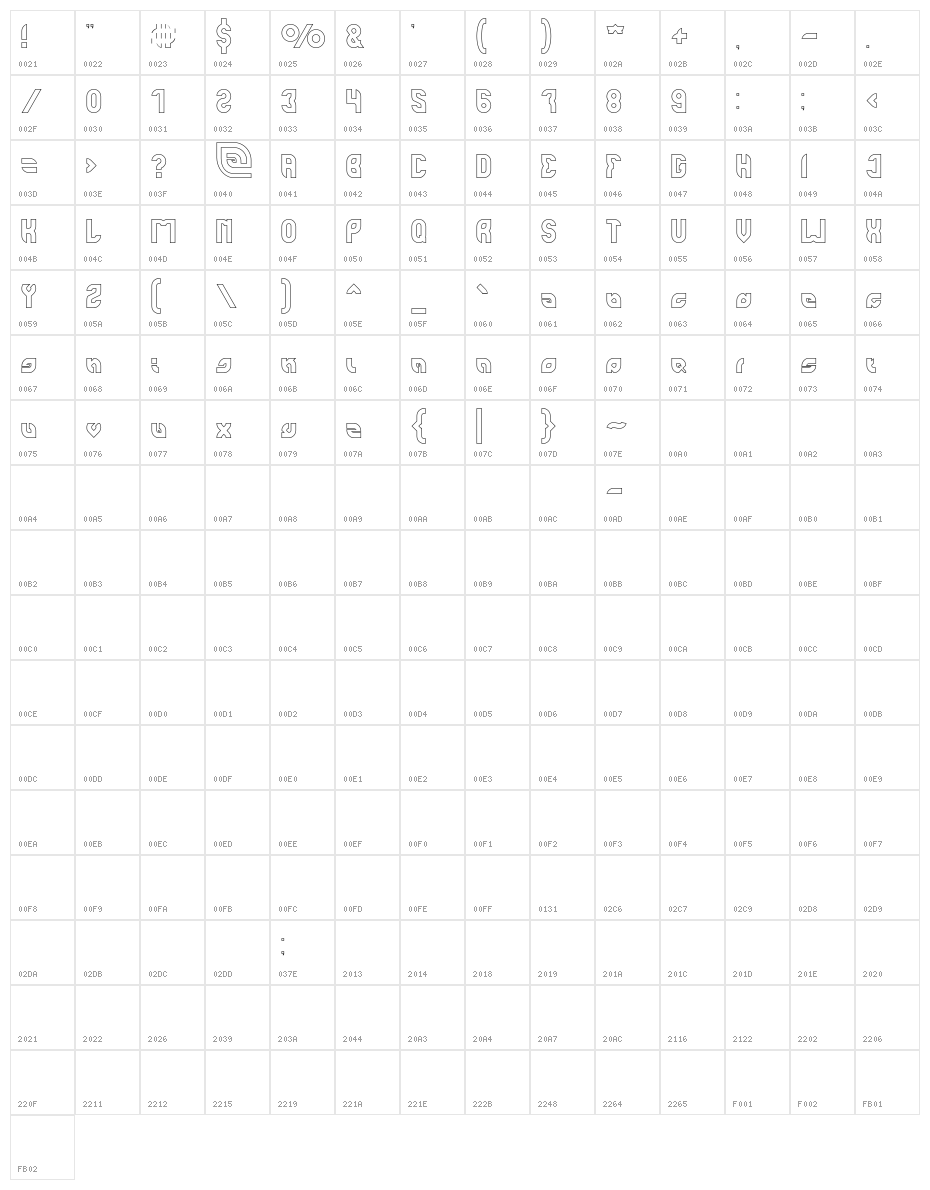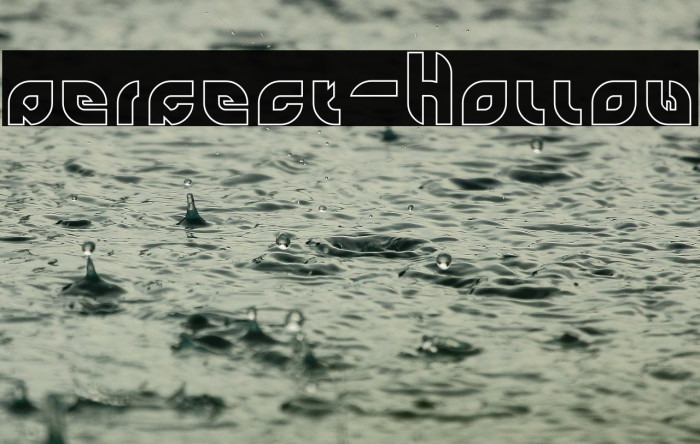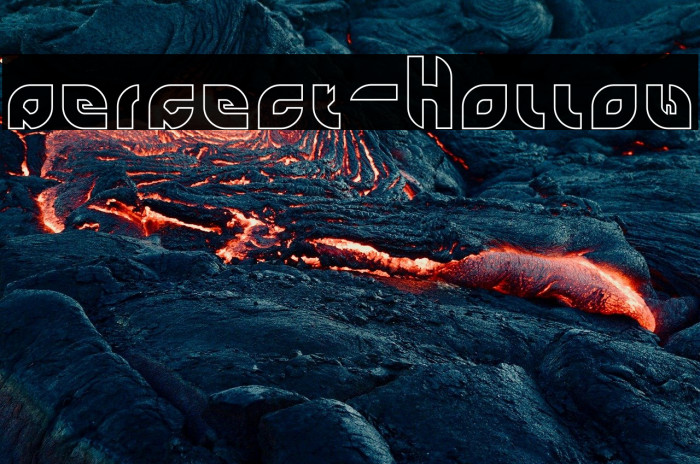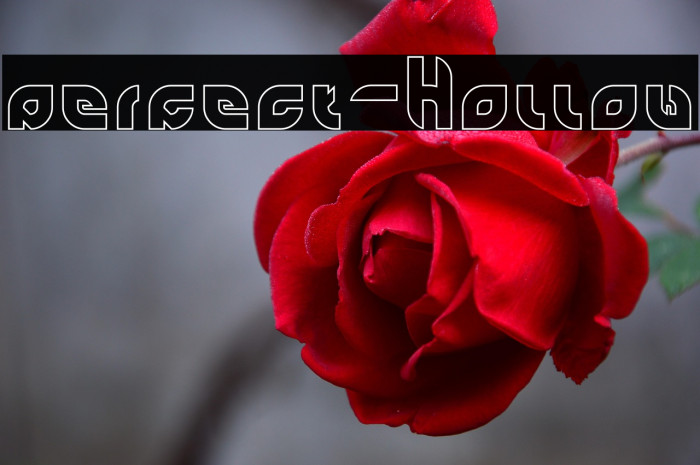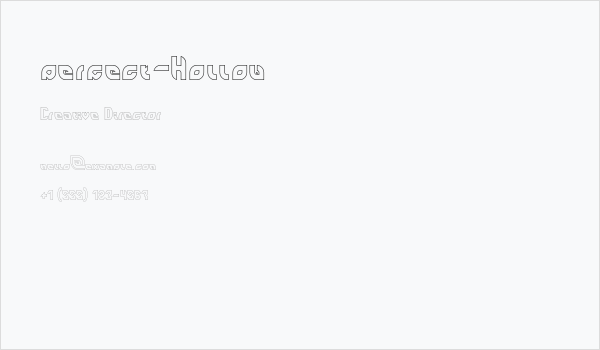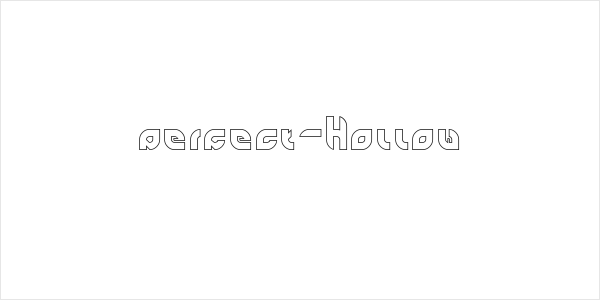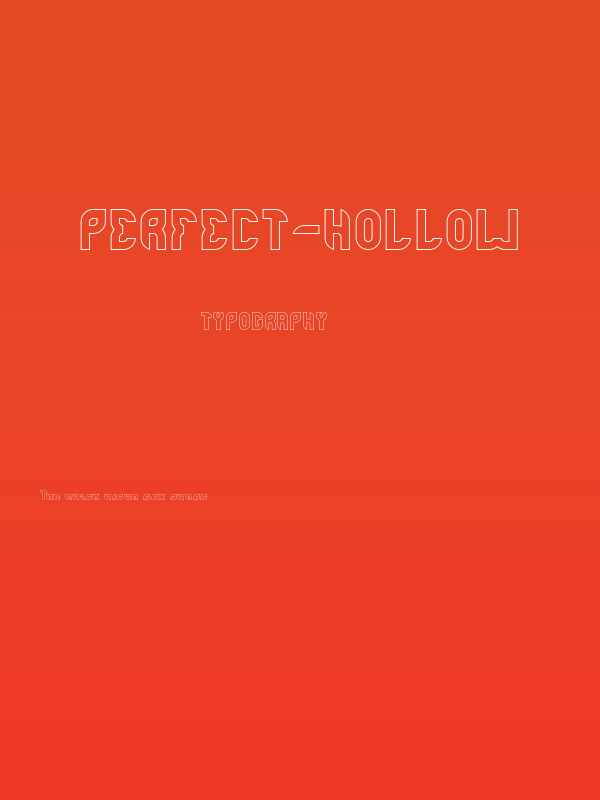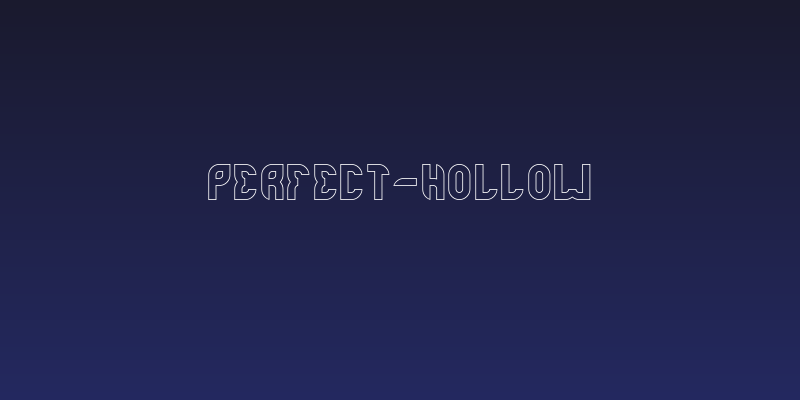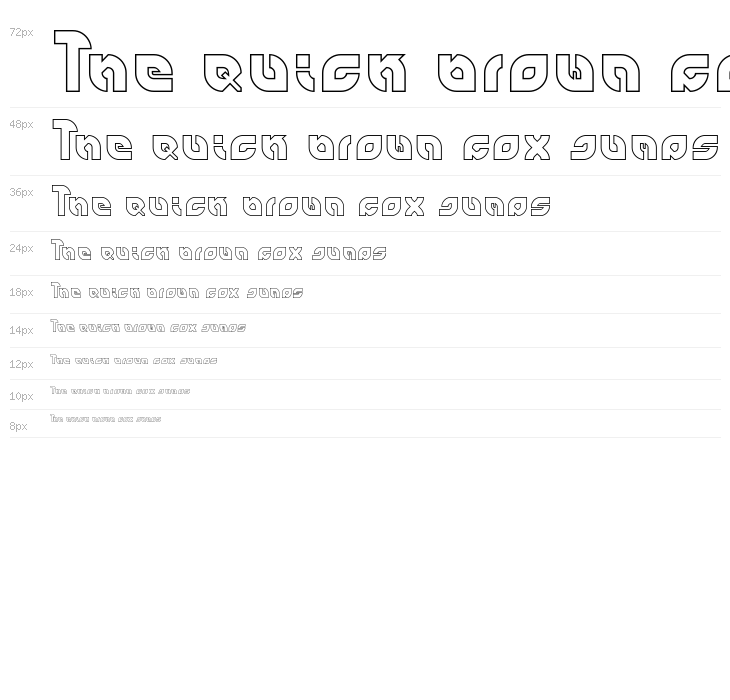
perfect-Hollow Font
perfect-Hollow Description
This font features a unique hollow design with bold, geometric shapes that create a striking visual impact. The uppercase and lowercase letters maintain a consistent style, characterized by angular lines and open spaces that form each character. The numbers and special characters follow the same aesthetic, ensuring uniformity across the entire set. The font's modern and futuristic appearance makes it ideal for projects that require a bold statement. Its hollow design allows for creative layering and color play, adding depth and interest to any design.
| Proposed Projects | Ideal for logo design, posters, album covers, and digital artwork that require a modern and eye-catching typeface. |